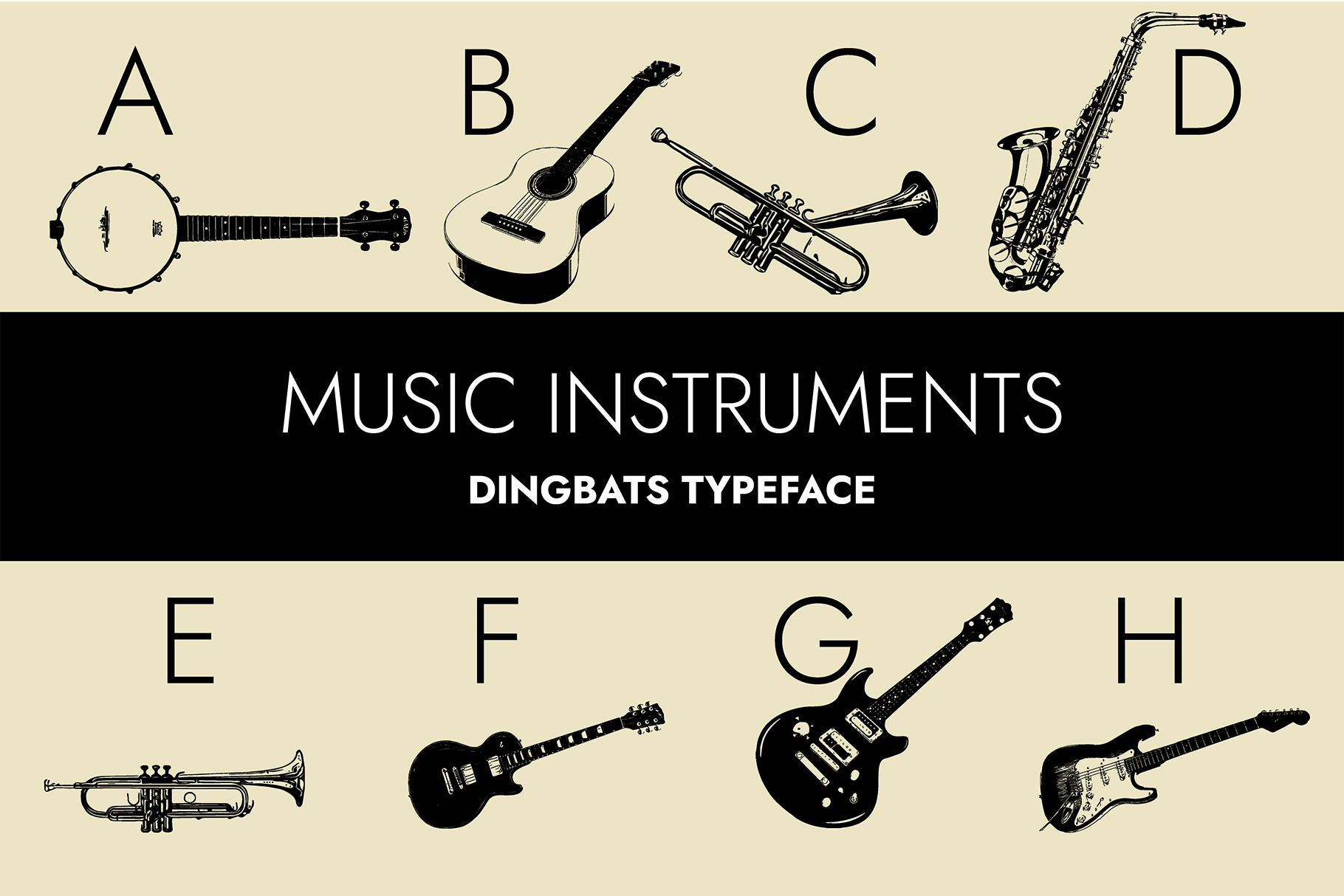
Music Instruments Dingbats Font
Music Instruments is a cute dingbats font designed to let you generate musical instrument clip arts in various ways. Fall in love with its lovely musical accents, and use them to create artistic designs!